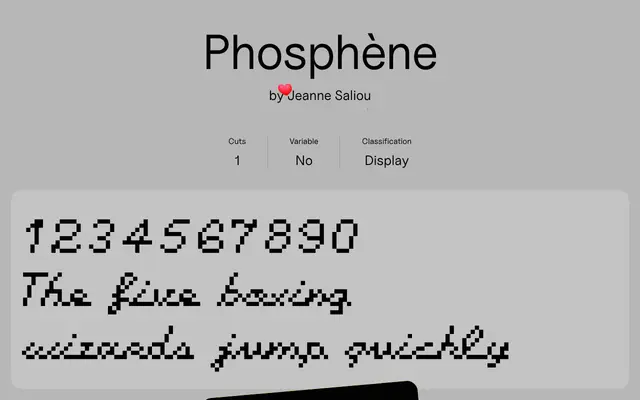
Phosphène
A single-cut display typeface by Jeanne Saliou, available free under the SIL Open Font Licence for commercial and personal use.
Phosphène is a free display typeface designed by Jeanne Saliou and distributed via Uncut under the SIL Open Font Licence 1.1. It comes in one cut with no variable axis, keeping the offering tight and intentional. The licence permits commercial use, modification and redistribution with certain conditions attached.
Classified as Display by the foundry; the name and single-cut structure suggest an expressive, decorative typeface intended for headline use rather than continuous text.